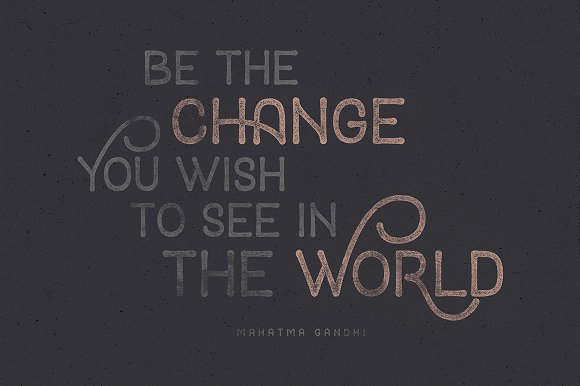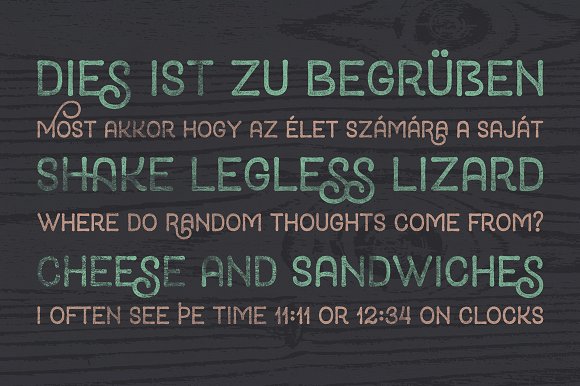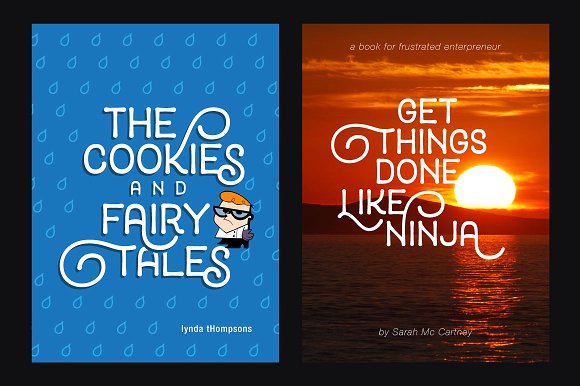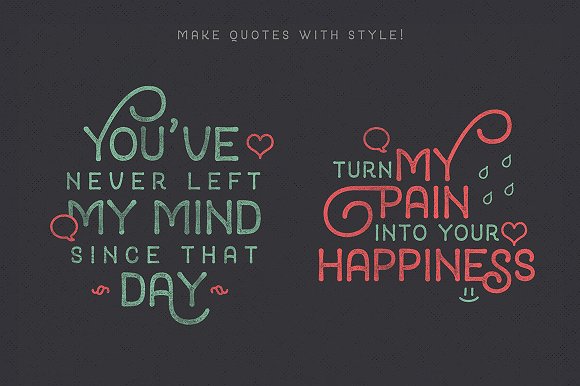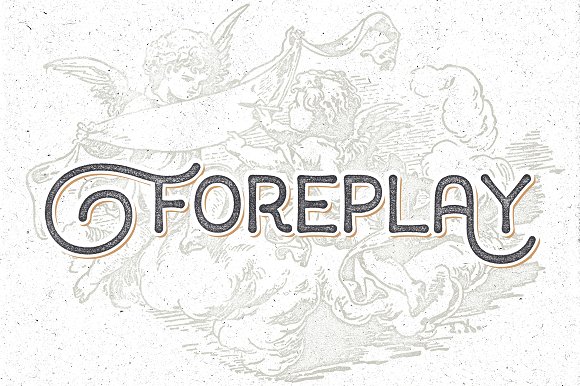
Foreplay Display Font
Introducing Foreplay Typeface. It is designed by athal.bertht, this is a premium font, are sold on creativemarket, but it was great, it is free today for download. Foreplay is a fun display font intended to use in retro and vintage design styles. It is suitable for poster, t-shirt, lettering, greeting card, etc. Foreplay contains ornamental uppercase that can be used to create a stand out and attractive message.